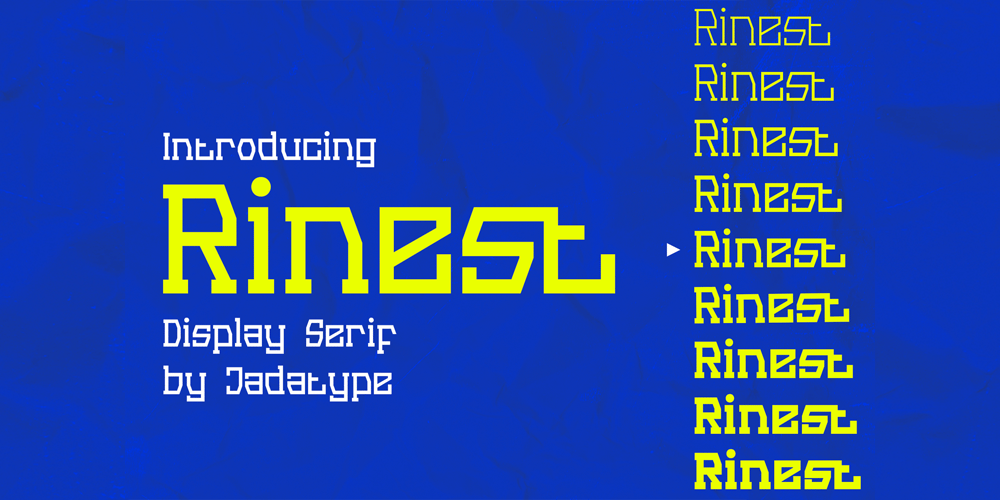
Rinest Typeface Font Family was designed by Jada Akbal and published by Jadatype. Rinest Typeface contains 9 styles and family package options. Rinest is a Monospace Serif Typeface that came with 9 fonts. Suitable for Product, Branding, social media, logotype and so on. Contains standard English letters, Numbers, Punctuation, and several accents that support multilingualism. Can be installed and used on applications such as adobe family, affinity or Ms. Word